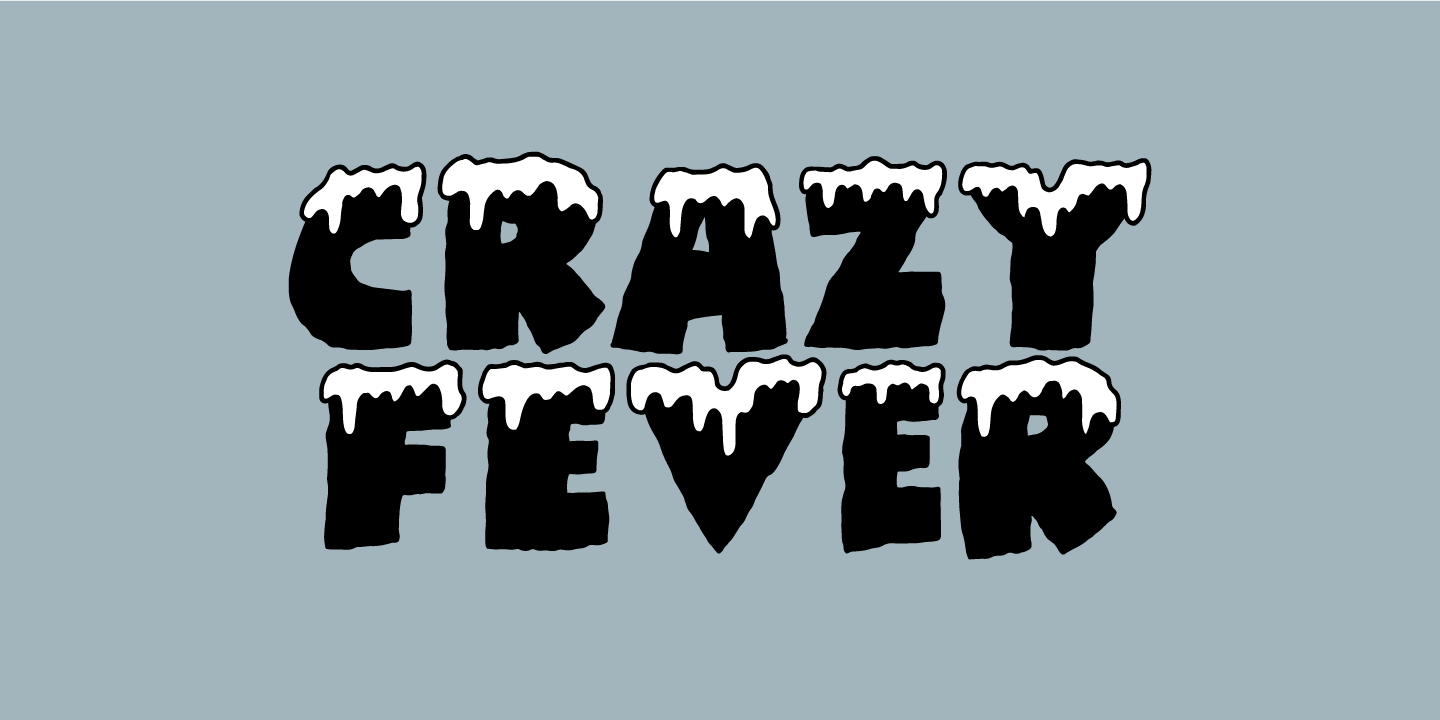
Crazy Fever Font is perfect for wild party invitations, energetic music festival posters, vibrant youth brand campaigns, dynamic gaming graphics, explosive product launches, bold comic book titles, crazy nightclub promotions, fun children's entertainment materials, zany social media content, and high-energy advertising campaigns.
Crazy Fever Font is exciting because it unleashes unbridled creative energy through its wildly dynamic letterforms that pulse with infectious enthusiasm and playful madness, instantly grabbing attention and creating an atmosphere of pure fun and excitement. This extraordinary typeface embodies the spirit of youthful rebellion and creative chaos, making it an essential tool for designers who dare to break conventional rules and create visually explosive communications that demand to be noticed.
The Crazy Fever Font family features an explosive collection including Regular, Bold, ExtraBold, Outline, Shadow, Distressed, Grunge, Bubble effects, Neon styles, and wild decorative variations, providing complete creative freedom for any high-energy design project.
Crazy Fever Font represents a revolution in expressive typography, delivering unmatched visual impact for projects that celebrate creativity, fun, and youthful energy. Its distinctive chaotic character structure makes it particularly effective for brands targeting young, energetic audiences who appreciate bold, unconventional design approaches.
The electrifying appeal of Crazy Fever Font makes it ideal for entertainment companies, youth-oriented brands, gaming studios, music venues, extreme sports companies, and creative agencies specializing in energetic, fun-focused campaigns. Its dynamic presence ensures memorable brand recognition among vibrant, trend-setting audiences.
Design professionals understand how Crazy Fever Font Free Download provides instant access to premium explosive typography that transforms ordinary designs into extraordinary expressions of energy and excitement. The font's comprehensive character set supports diverse creative applications while maintaining its distinctive wild appeal.
Crazy Fever Font's advanced features include contextual alternates, playful ligatures, and special effects that amplify the font's energetic character. These dynamic elements enable designers to create compelling layouts that resonate with fun-loving audiences and energy-driven demographics.
The versatility of Crazy Fever Font extends beyond traditional applications, proving equally effective for mobile game interfaces, streaming overlays, YouTube thumbnails, TikTok graphics, and viral social media campaigns. Its scalable design maintains explosive energy at any size.
For creative professionals seeking to inject pure excitement into their work, Crazy Fever Font delivers the perfect combination of wild creativity and professional functionality. Its energetic appeal combined with technical excellence makes it an indispensable resource for creating memorable visual communications that capture the infectious spirit of fun, excitement, and creative madness in today's entertainment-driven marketplace.